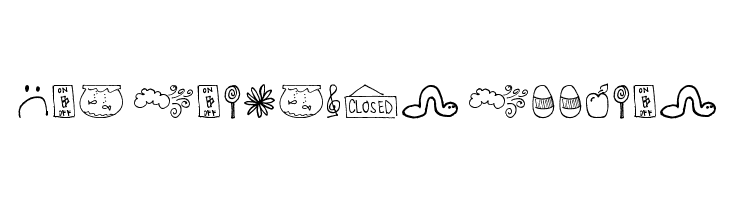
A bold, decorative font with geometric patterns and a medieval flair.
A playful, hand-drawn font with a sketch-like, italicized style.
A playful, hand-drawn sketch font with a whimsical and artistic style.
A fluid, cursive font with a natural, handwritten style.
A romantic and elegant script font with graceful loops and swashes.
A decorative, medieval-style font with ornate uppercase and bold lowercase letters.
A playful, handwritten font with bold, irregular strokes and a lively character.
An elegant script font with intricate swirls and flowing design.
A bold, stencil-like font with sharp, angular edges and an industrial feel.
A doodle-style emoji font with expressive, cartoonish faces and icons.
Modern, playful script with high contrast and decorative swashes.
Tall, playful handwritten script with a casual, whimsical feel.
Playful, bold, hand-drawn display font with rounded, irregular forms.
A bold, hand-drawn font with a playful and artistic style.
A bold, decorative blackletter style font with sharp, angular lines.
A bold, geometric font with a modern, industrial feel.
A bold, outlined font with a medieval, fantasy-inspired design.
A bold, playful font with a 3D shadow effect and cartoonish style.
A bold, playful font with a 3D shadow effect and geometric style.
A bold, outlined font with a fantasy-inspired, geometric style.
A bold, oblique font with a modern and dynamic style.